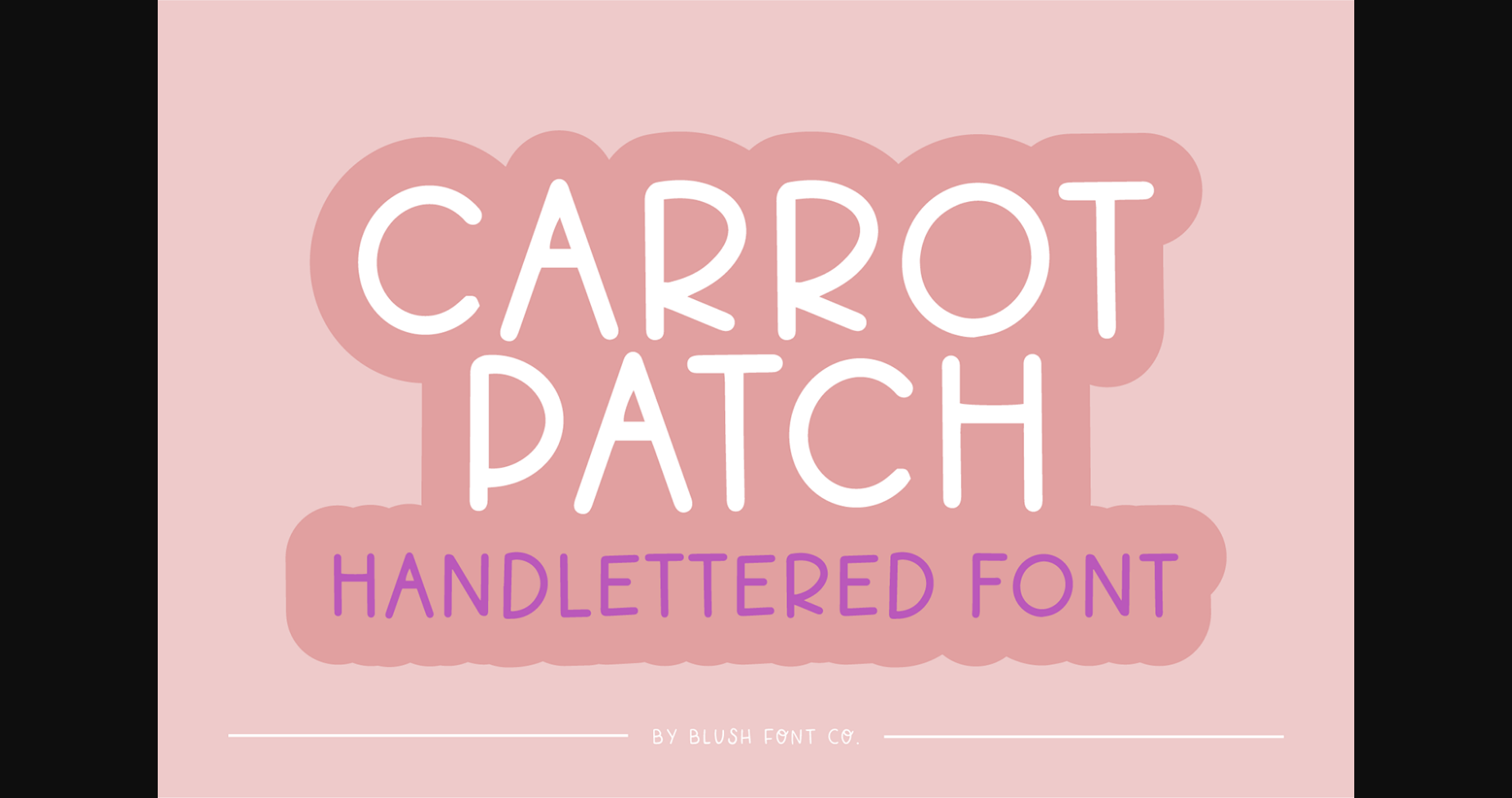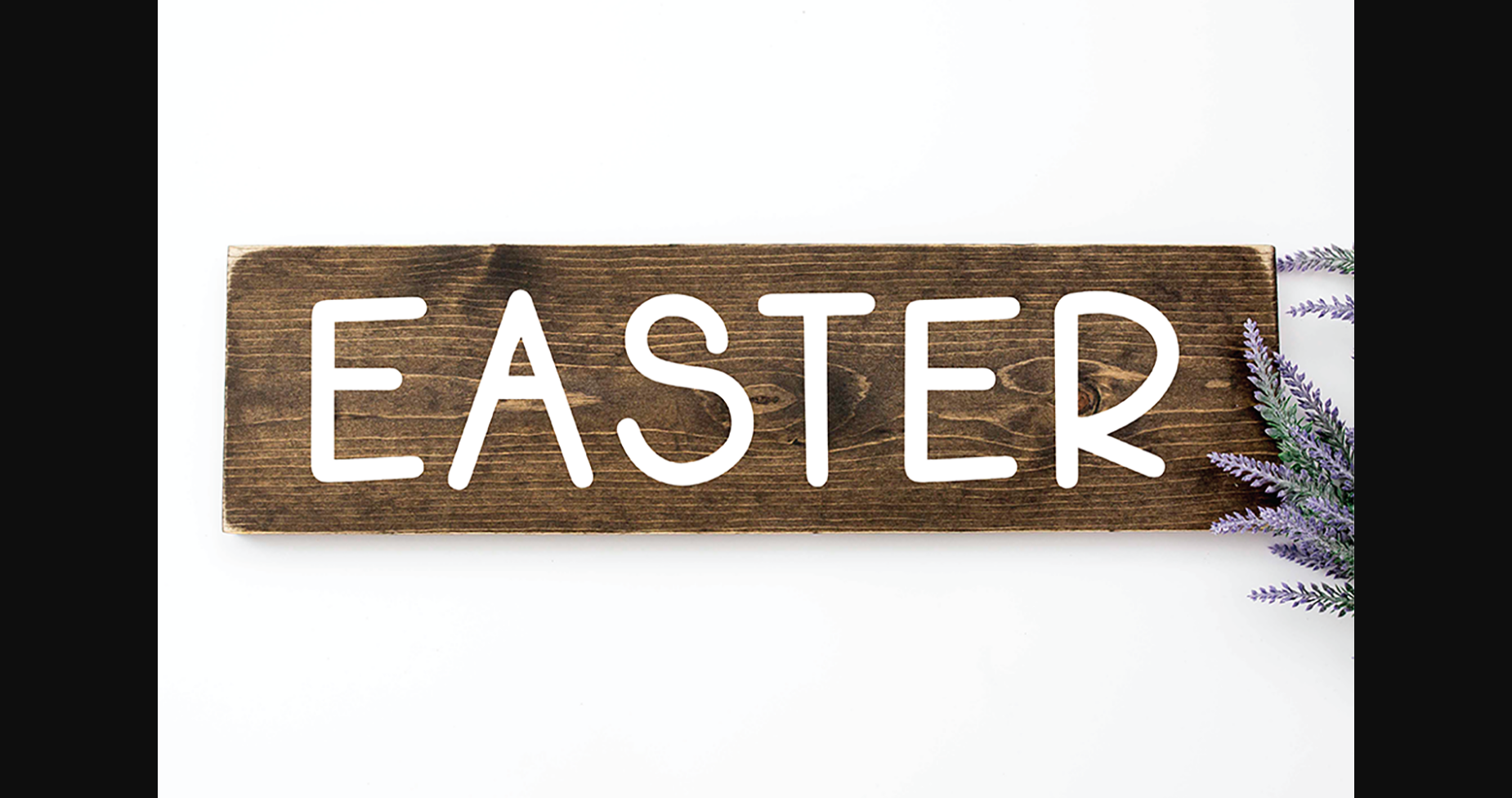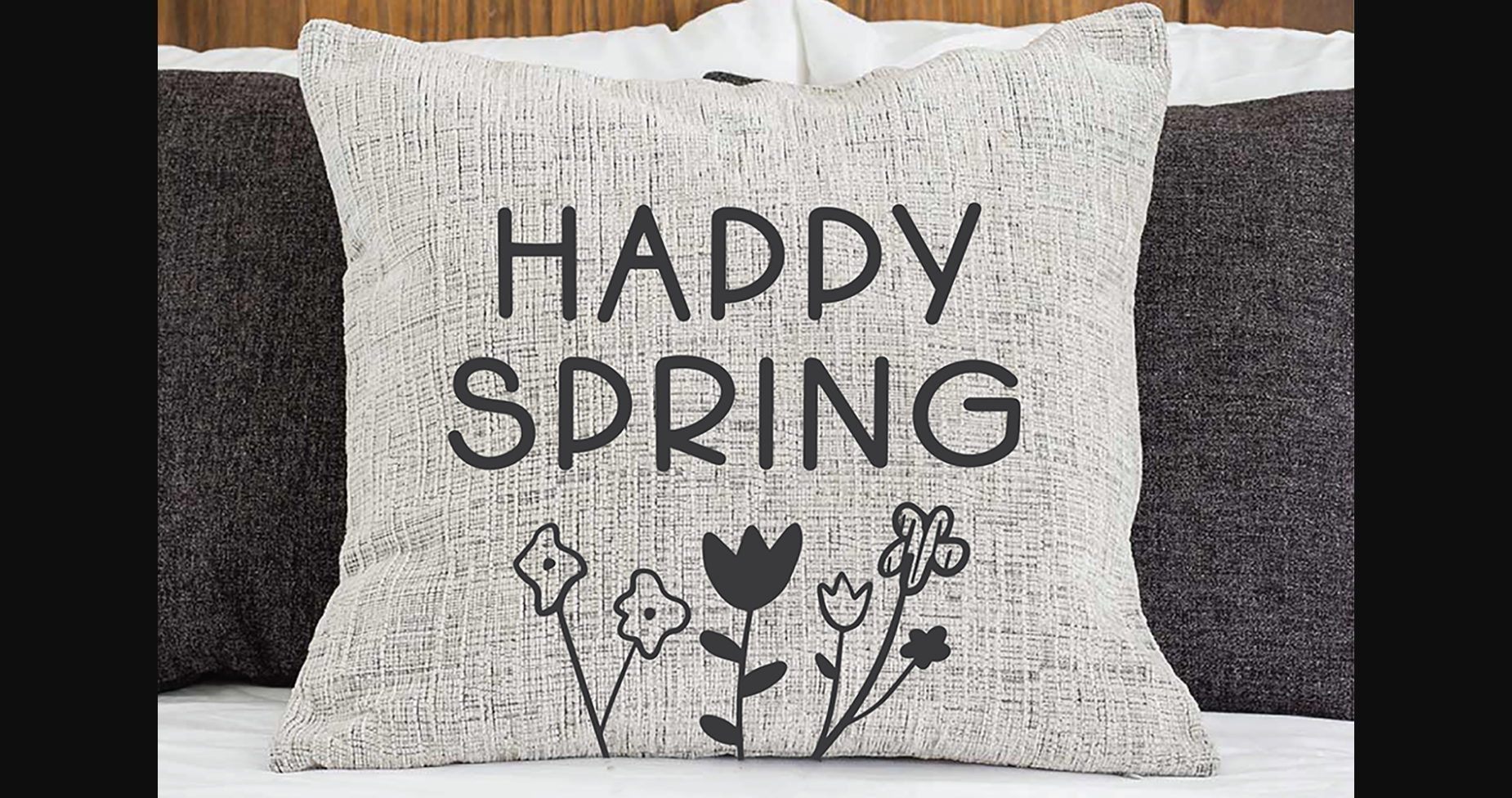
Carrot Patch Font
About Carrot Patch Font
Carrot Patch is a simple and clean script font that is perfect for adding a touch of elegance to any project. Its flowing lines and minimalistic design make it easy to read while still retaining a sense of sophistication. Ideal for logos, branding, and invitations, this font is sure to impress.